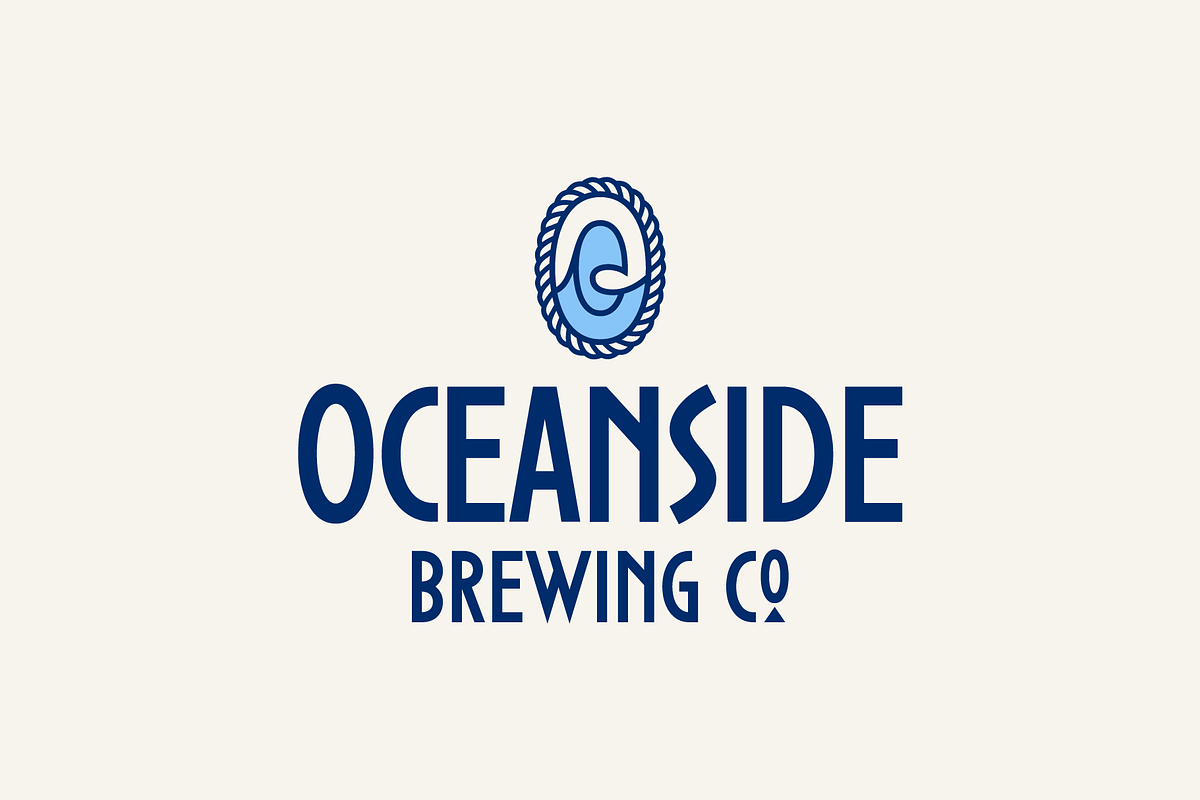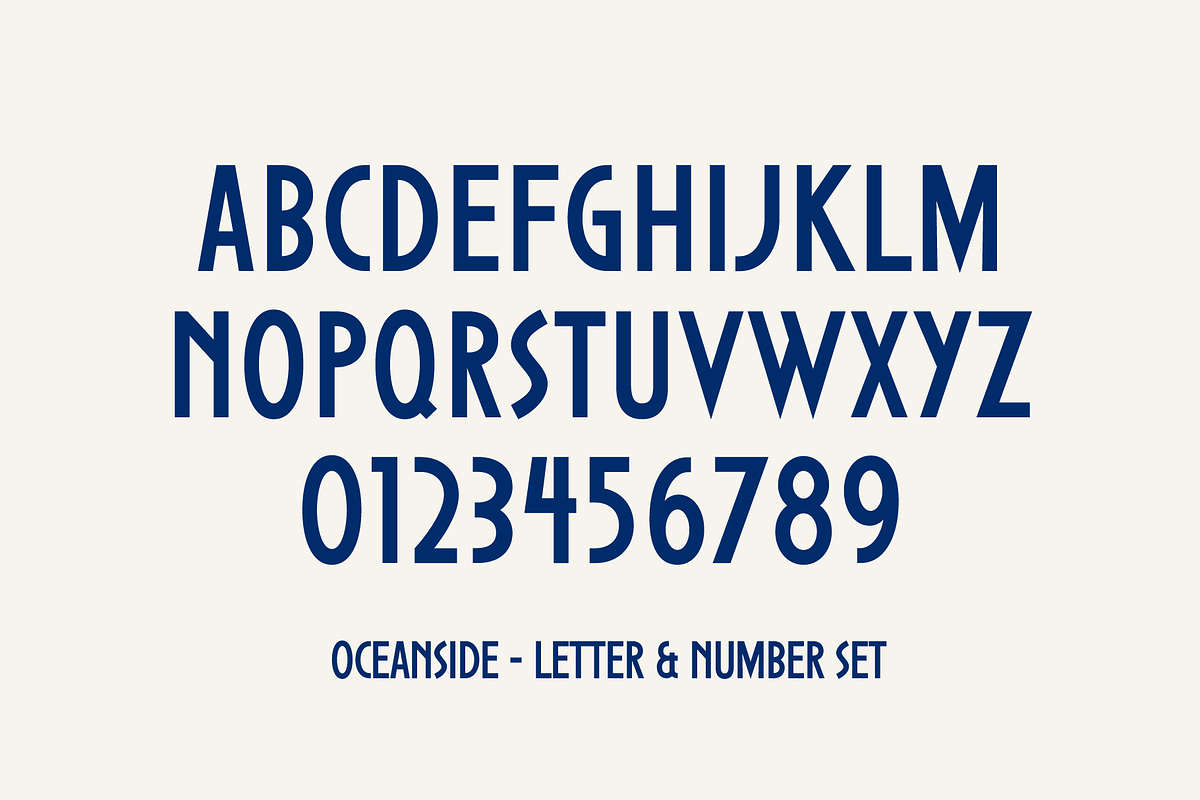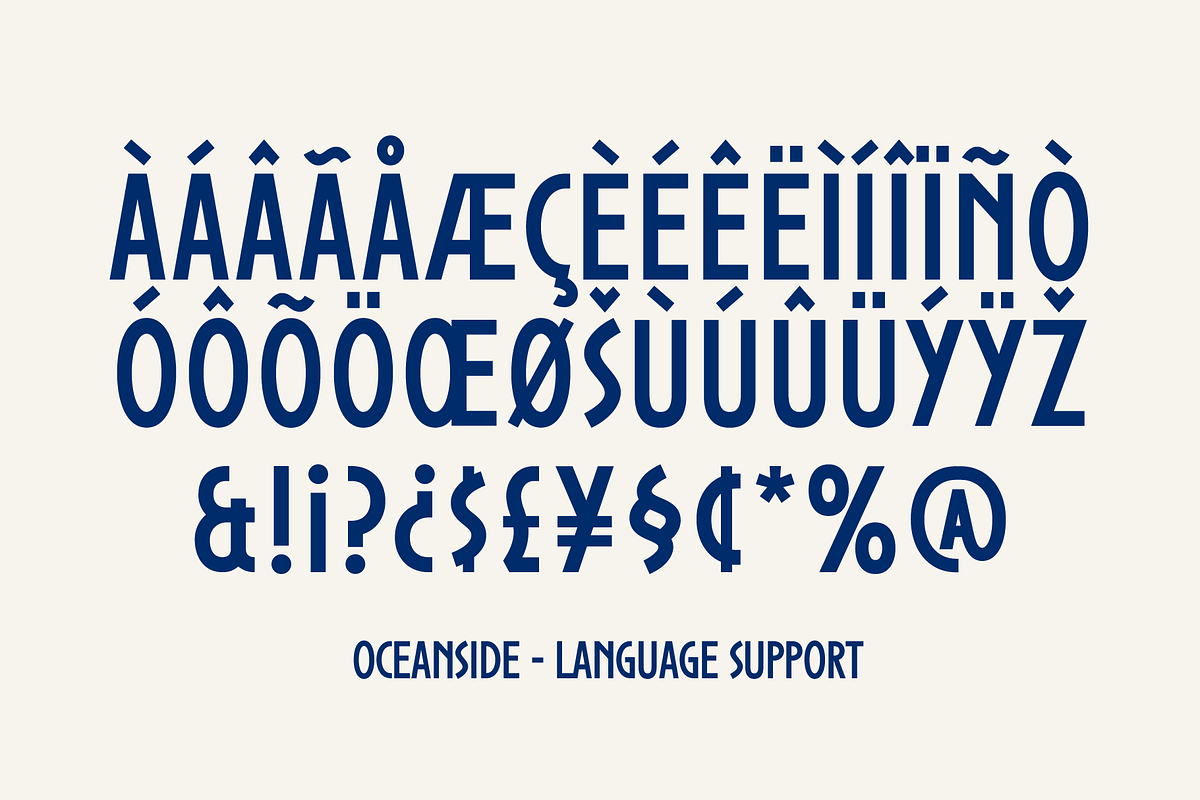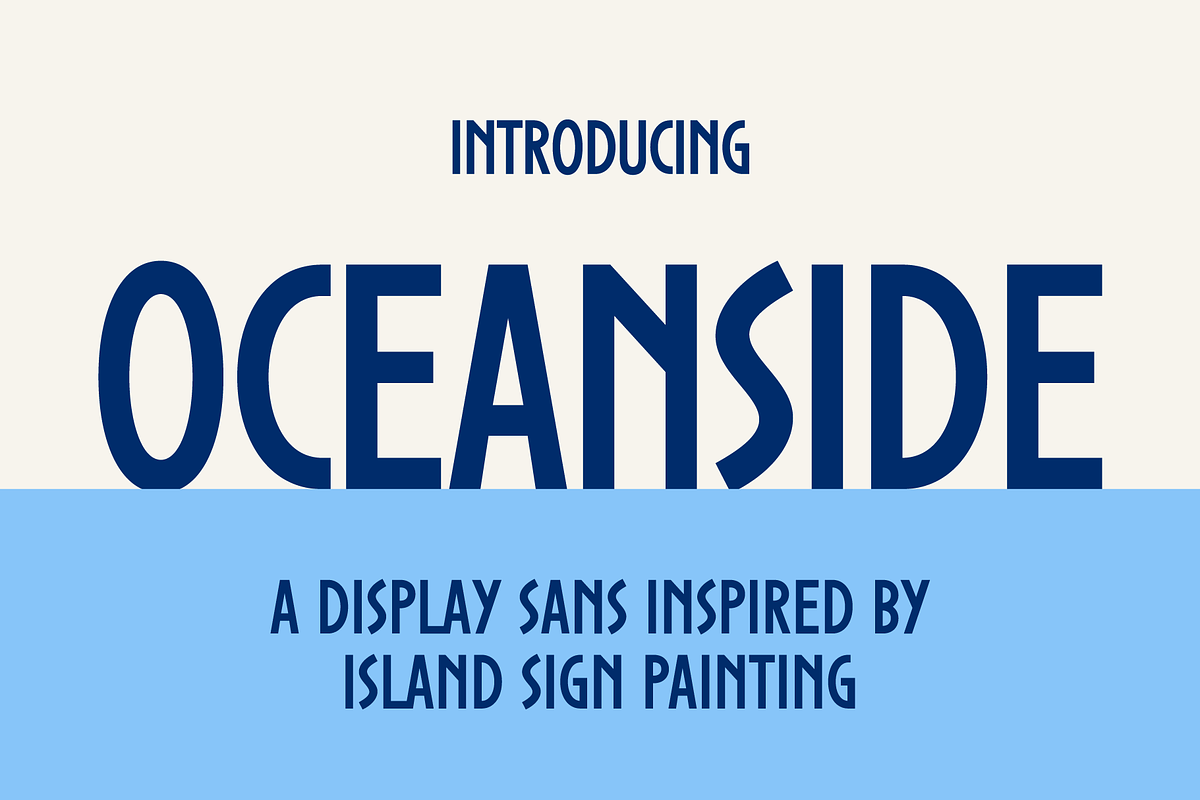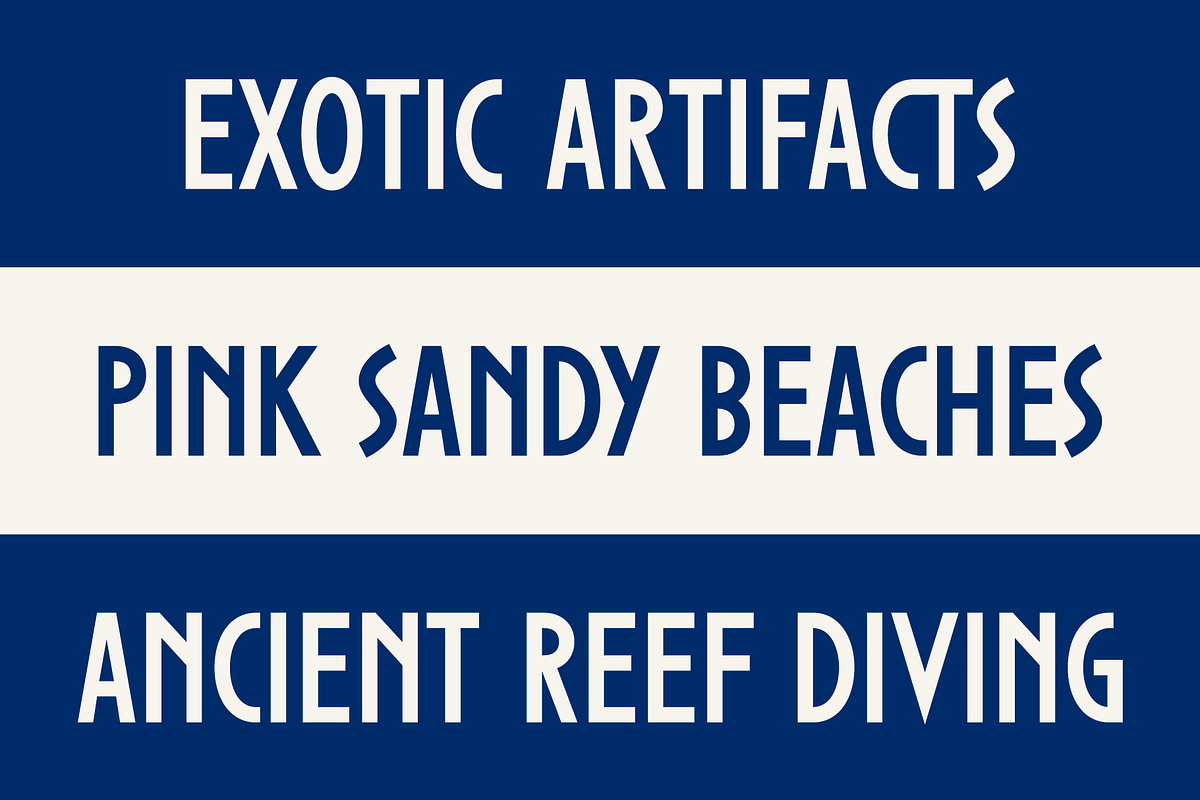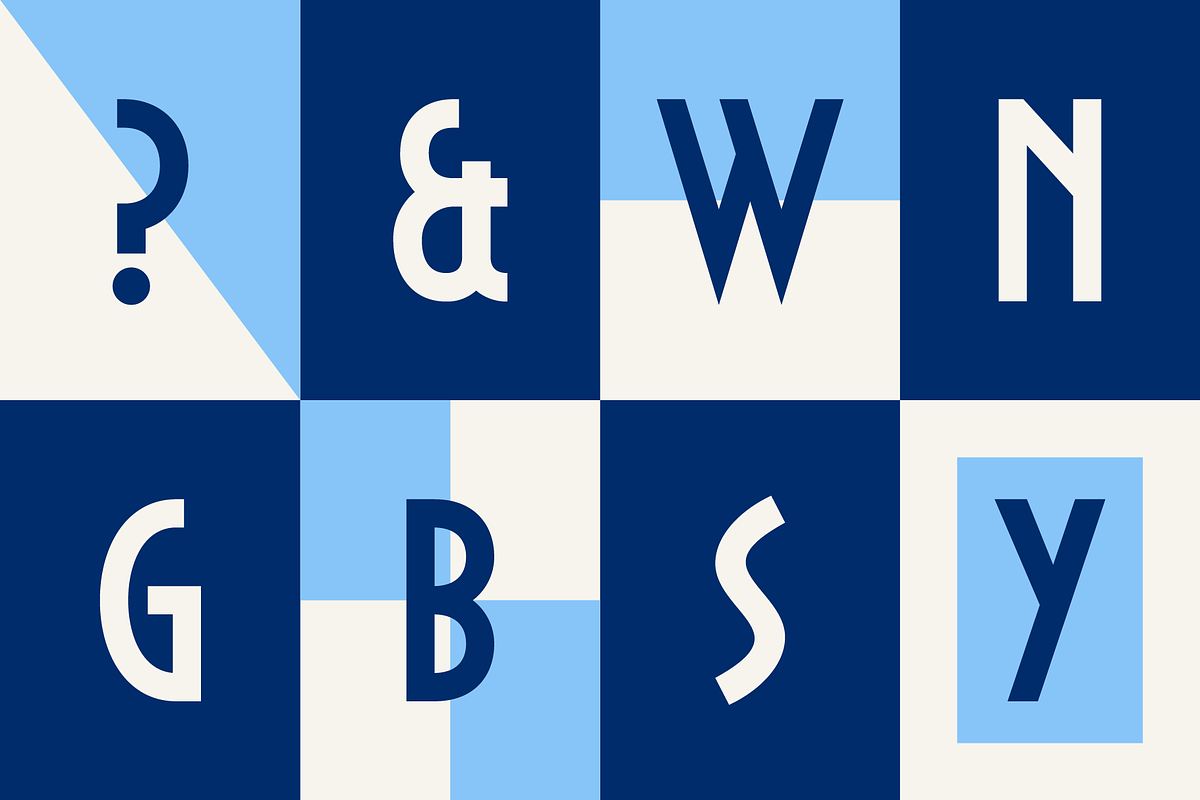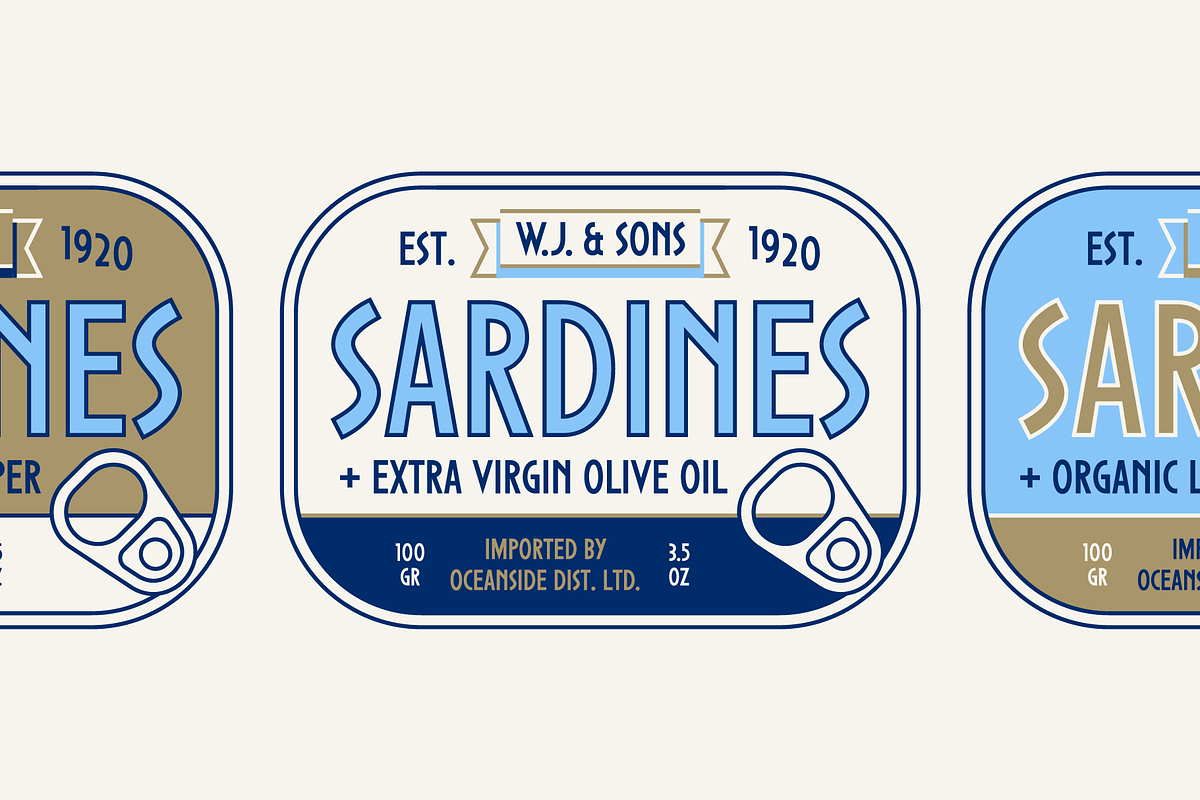
Oceanside Sans
Oceanside Sans is a display typeface produced in 2022 by Bepop Font Foundry. This typeface was born out of a month-long trip to the Bahamas. The scenery, both natural and architectural, was stunning, yet restrained. Each settlement featured its own flavor of beautiful hand-painted signs promoting local businesses - fresh fish & Conch, liquor, ice, gifts, and more. Oceanside pays homage to the visual vernacular of the islands we visited during our stay.
This font is ideal for logos, branding, and merchandise with a coastal/tropical tinge